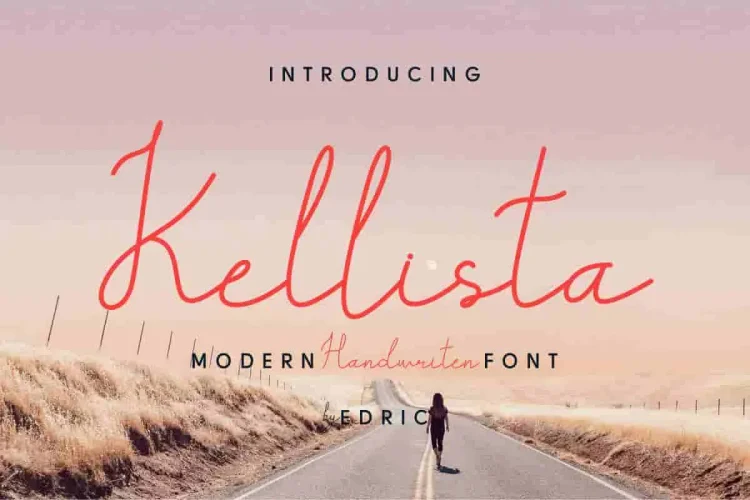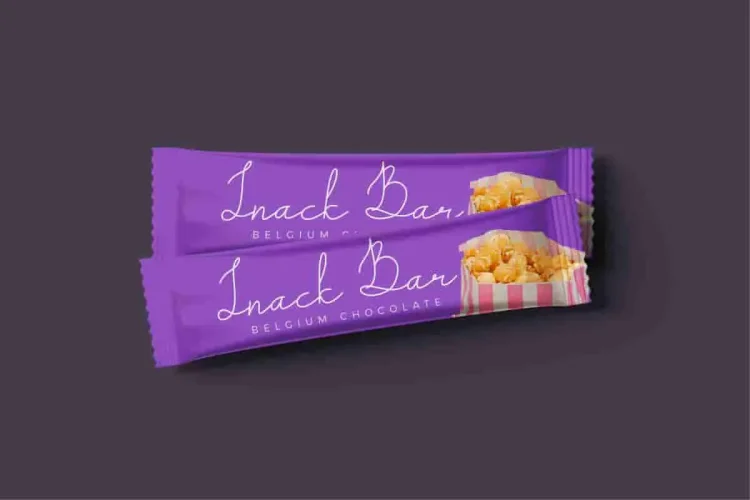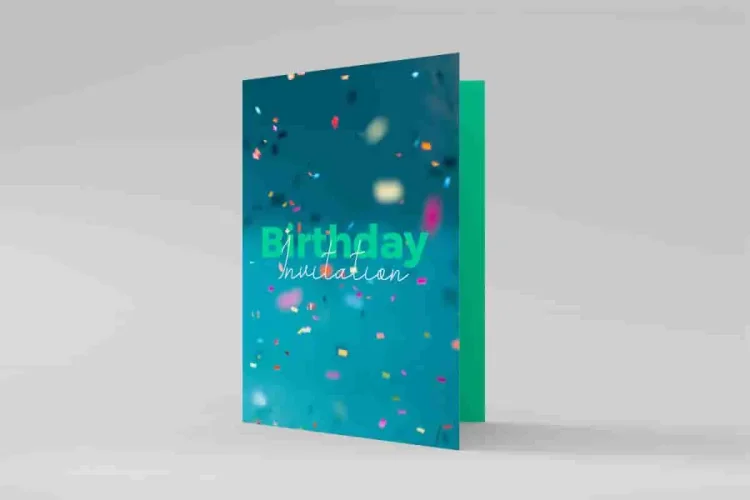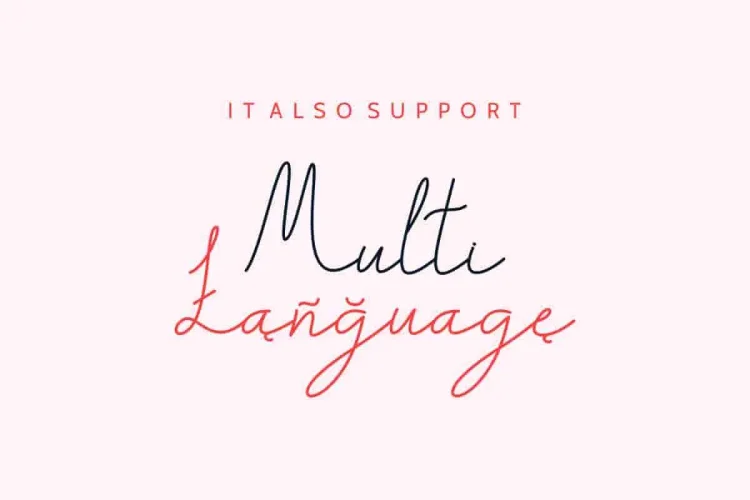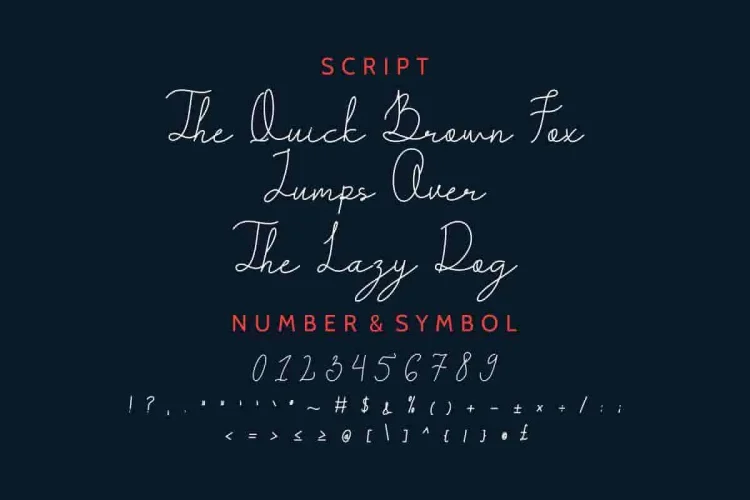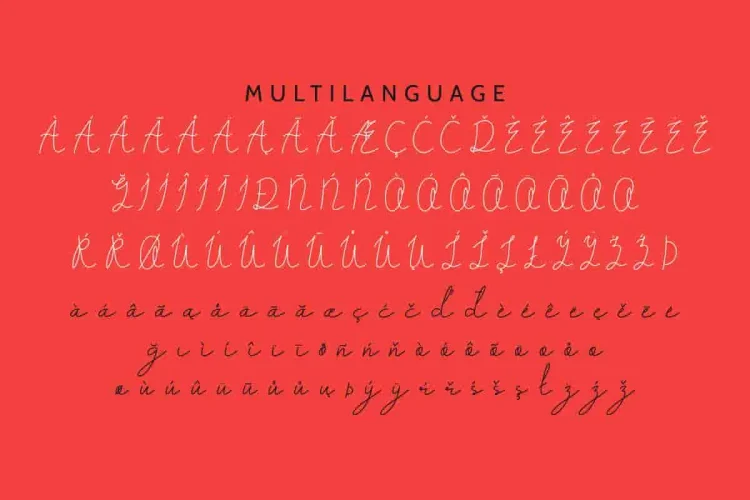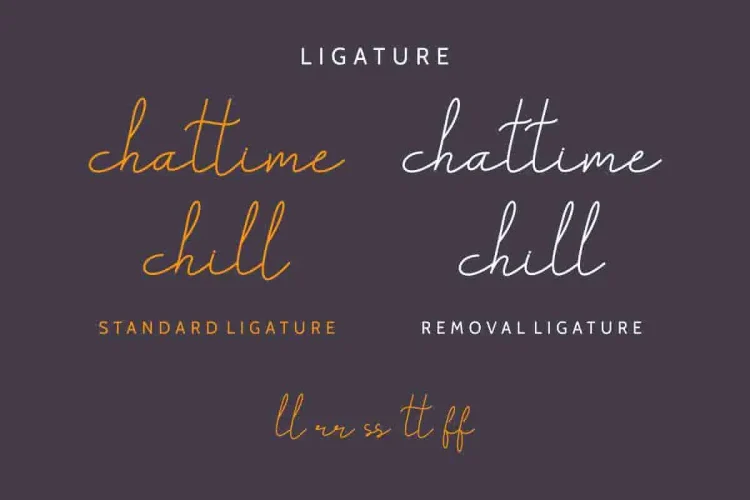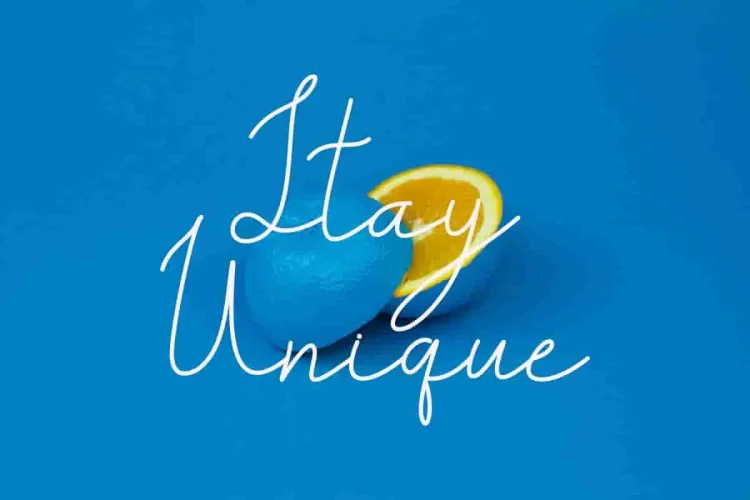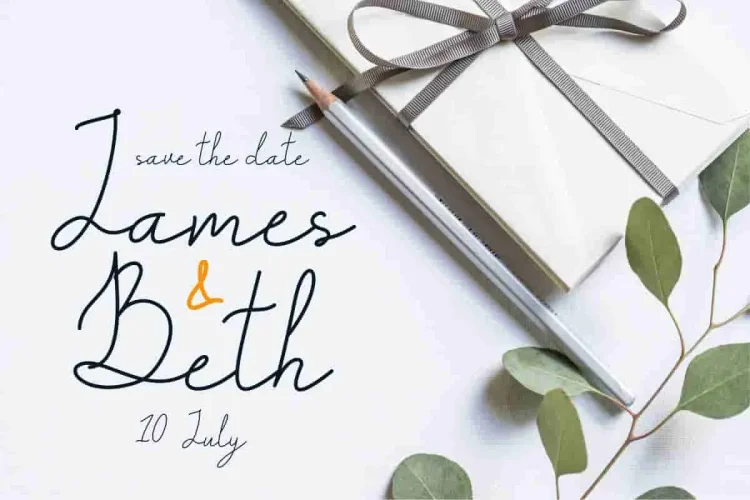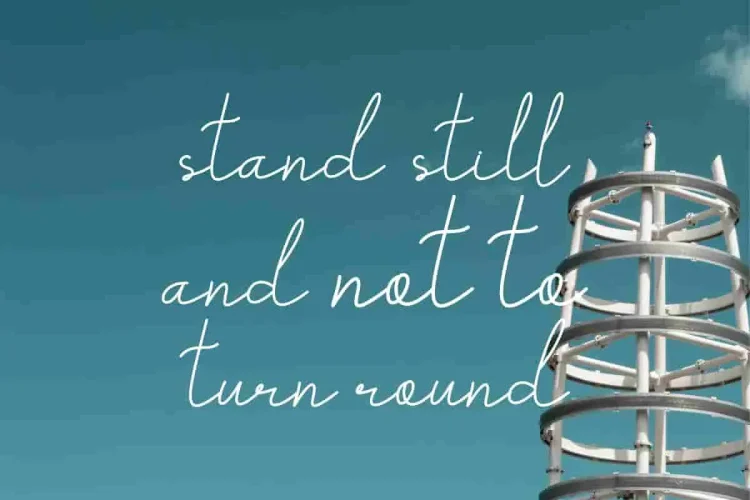
Kellista Handwritting Font
Introducing our newest font :
Kellista !
A stylish Signature Font!
Kellista is a new modern decorative handwritting script font with stylish characters. It has a unique, elegant, and exclusive style.